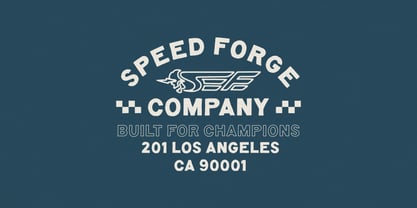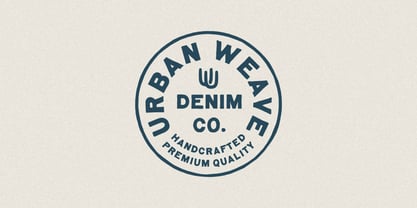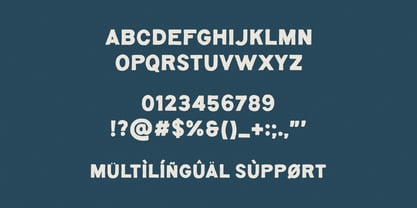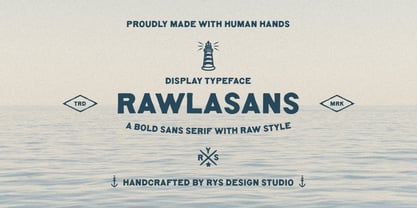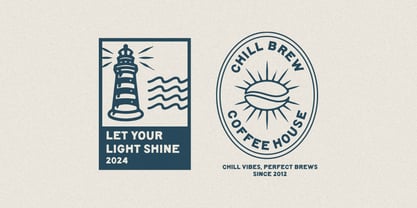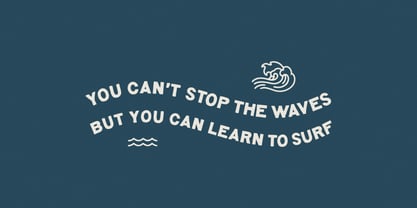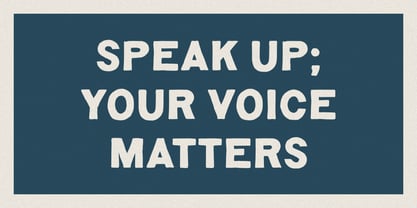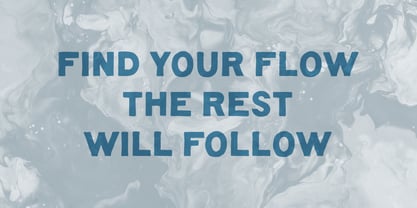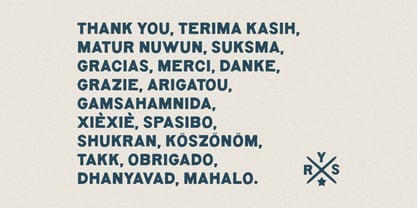
RYS Rawlasans
La familia tipográfica RYS Rawlasans fue diseñada por Witoko Aji Laksono y publicada por RYS Design Studio. RYS Rawlasans contiene 1 estilos. Más información sobre esta familia
Introducing RAWLASANS is a Handmade Font
A bold sans serif display typeface with a raw style, handcrafted with human hands. Inspired by authentic creations that embrace imperfection but this font is perfect for displays and logos, as well as for apparel design, quotes, packaging, merchandise, signs, or anything that needs an original handmade feel.
fyi, Rawlasans is derived from the Javanese word "rolasan," which means taking a break during work hours. It serves as a reminder of the importance of pausing to breathe in every journey. May your days ahead be filled with meaning.